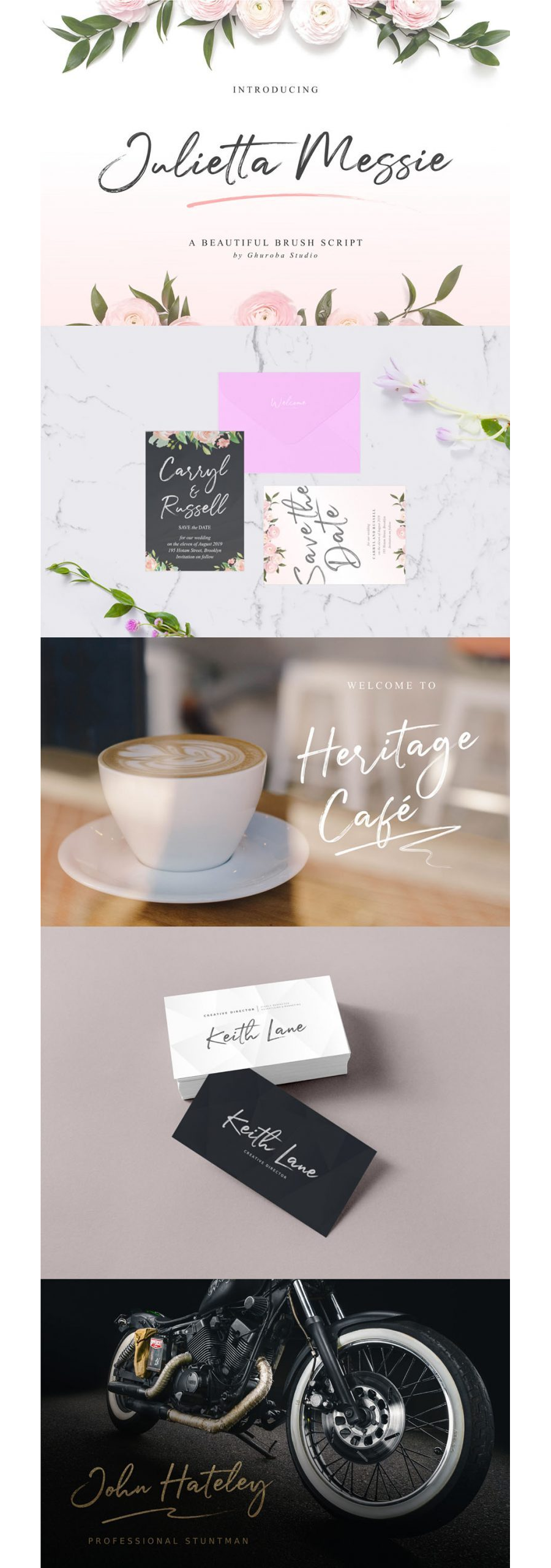
Julietta Messie Script Font
Julietta Messie Script Font is a beautiful handlettering style brush font by Ghuroba Studio. This font has an elegant feel and is perfect to add some stylish and luxurious touch to your designs. It’s perfect for branding, wedding invitations, poster designs, business cards, newsletters, stationary, logos, packaging, designs and more.